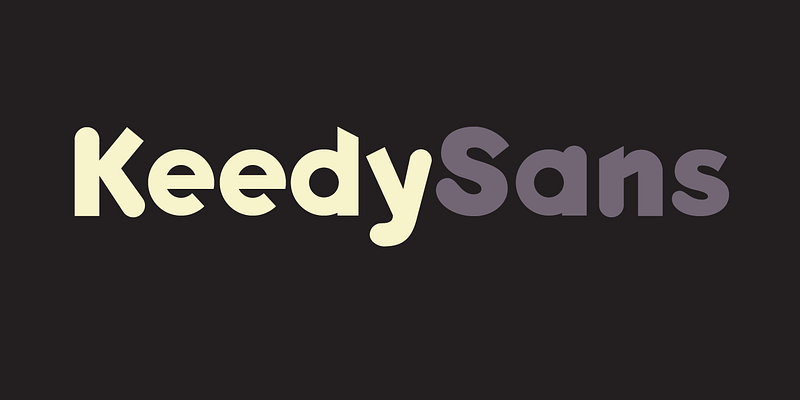
Like many graphic designers of the late 1980s and early 1990s, Jeffery Keedy was eager to embrace the computer as a tool, but was frustrated by the limited selection of digital typefaces available. Keedy Sans, created in response, was used in layouts for Emigre magazine and embraced by designers everywhere. Keedy Sans is similar in significance to another important Emigre font, P. Scott Makela’s Dead History, designed to celebrate its experimental nature with letter forms that are intentionally unfinished and incongruous. “Most typefaces are logically systematic; if you I wanted a typeface that would willfully contradict those expectations,” Keedy has said. In 2011, Keedy Sans was one of 23 digital typefaces included in the permanent architecture and design collection of the Museum of Modern Art in New York. ------- ###Download the PDF [here](https://www.emigre.com/PDF/Keedy.pdf)